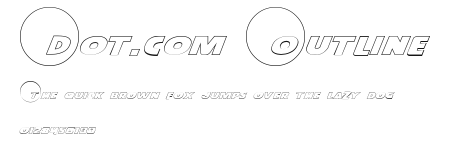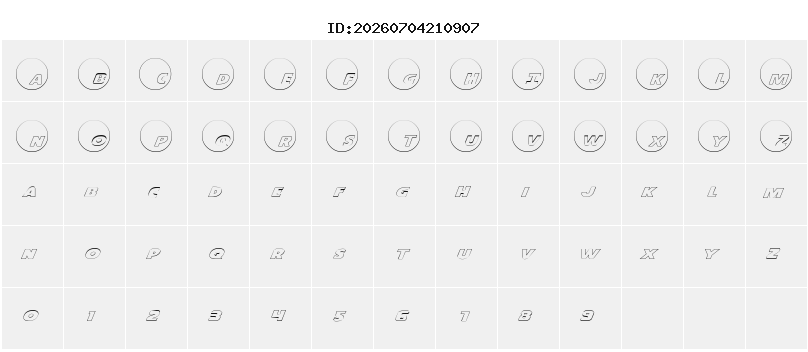
• Font Name: Dot.com Outline
• Font Style: Outline
• Full Font Name: Dot.com Outline
About Dot.com Outline.ttf
Dot.com Outline.ttf is a modern, elegant sans-serif font designed for ultimate readability and visual harmony. Perfect for branding, headlines, web design, and print materials.